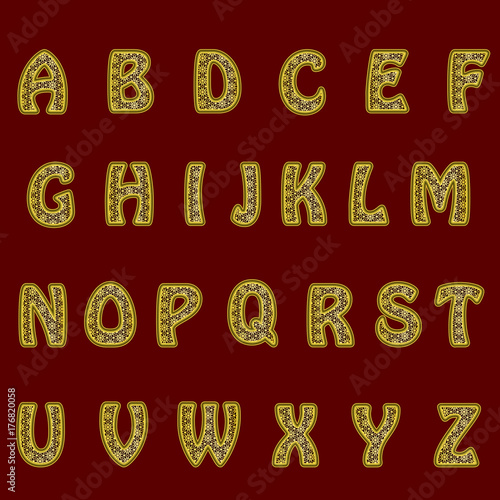
A complete set of gold letters with lace mesh. The edges of the letters are made with thin wire. Font is isolated by a dark red background. Letters are made in 3D shapes. Vector illustration.